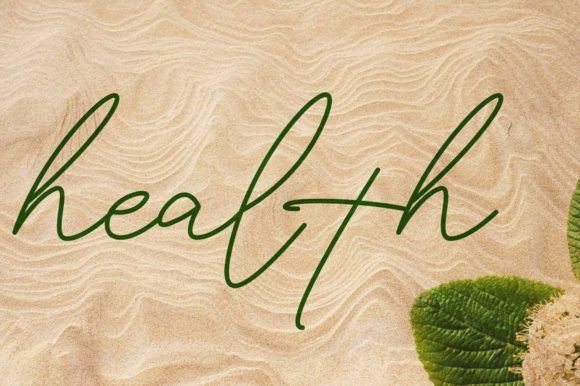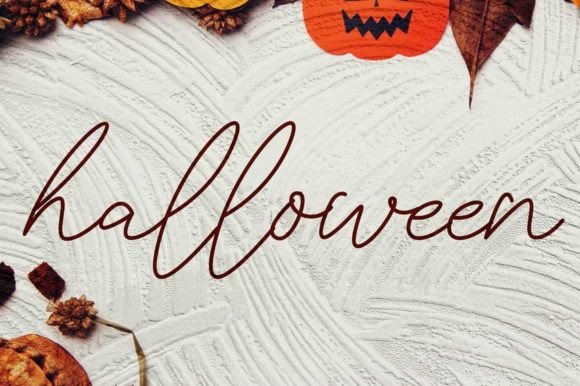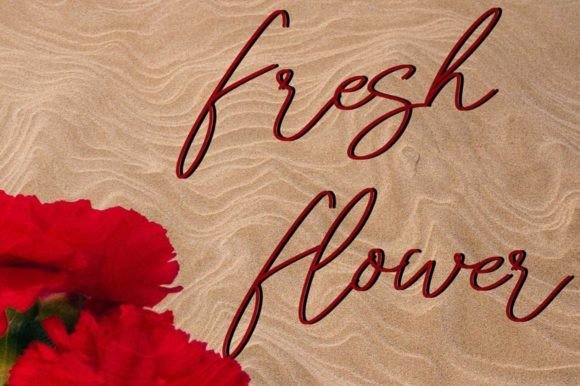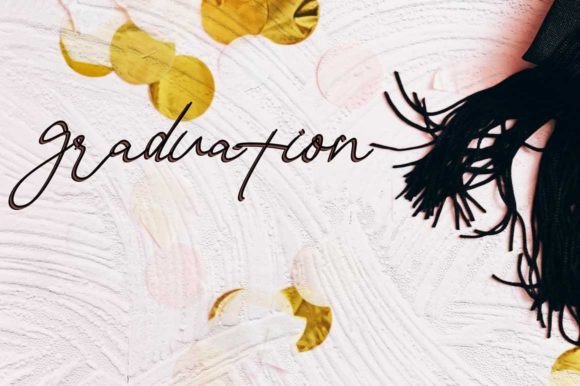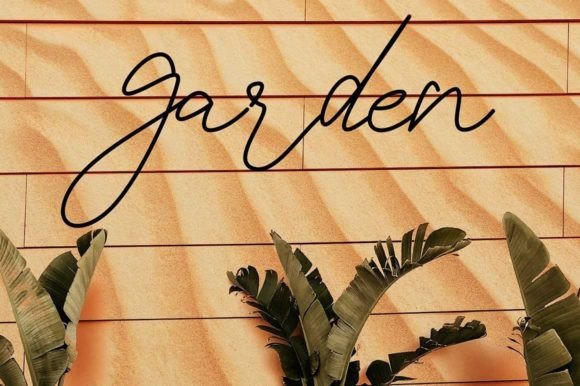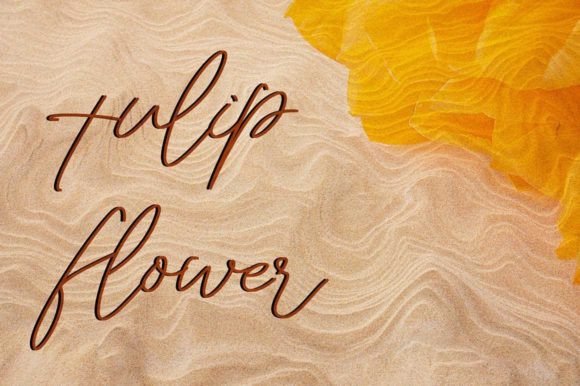
The Sparkle of Creativity: Unveiling Jewelry Font
Have you ever found yourself doodling on a napkin or scribbling in a notebook, lost in the pure joy of creating something beautiful? That’s exactly where the magic of typography begins. For designers, the perfect font can be the missing piece of the puzzle that brings a project to life. Enter Jewelry Font, a stunning handwritten font that exudes elegance and sophistication.
With its simple yet attractive design, Jewelry Font is perfect for a variety of applications, from art use and wall paintings to party invitations and simple handwritten notes. Its PUA encoded nature makes it incredibly easy to access all the glyphs and swashes, giving designers the freedom to get creative. Whether you’re looking to add a touch of whimsy or a dash of sophistication to your next project, Jewelry Font is the perfect choice.
Jewelry Font Key Features
- Font Family: Jewelry Font is a beautiful script font, ideal for adding a touch of elegance to your designs.
- Unique Characteristics: Jewelry Font features intricate details, swashes, and flourishes, making it perfect for creating eye-catching headlines and titles.
Jewelry Font Review
I recently had the chance to work with the Jewelry Font and I must say it’s a unique and interesting typeface. ✨ The designer’s attention to detail and emphasis on elegance shines through in the font’s design, making it perfect for high-end jewelry brands or luxurious product packaging.
The font’s ligatures and swashes add a touch of sophistication, while the flowing lines and curves evoke a sense of opulence. ✨ I particularly enjoyed using it for headings and titles, as it really grabs the reader’s attention. However, I did find that it can be a bit too ornate for body text, where readability is a priority.
- ⚠️ Limited character set: The font only includes uppercase and lowercase letters, with no support for special characters or punctuation marks.
- ⚠️ Not ideal for body text: While the font is stunning for headings and titles, it can be difficult to read in large blocks of text.
Overall, I would recommend the Jewelry Font for designers looking to add a touch of luxury and sophistication to their projects. However, it’s essential to use it judiciously, reserving it for headings, titles, and other design elements where it can really shine. With a bit of restraint, this font can be a real showstopper.